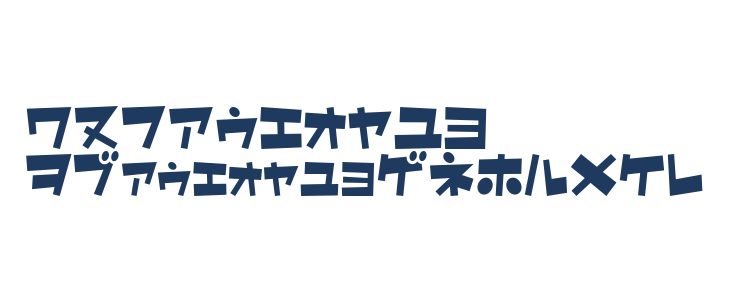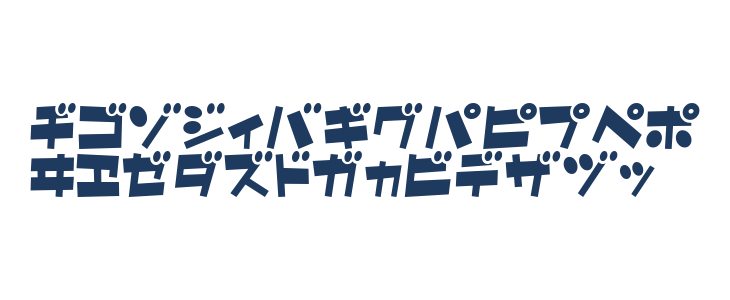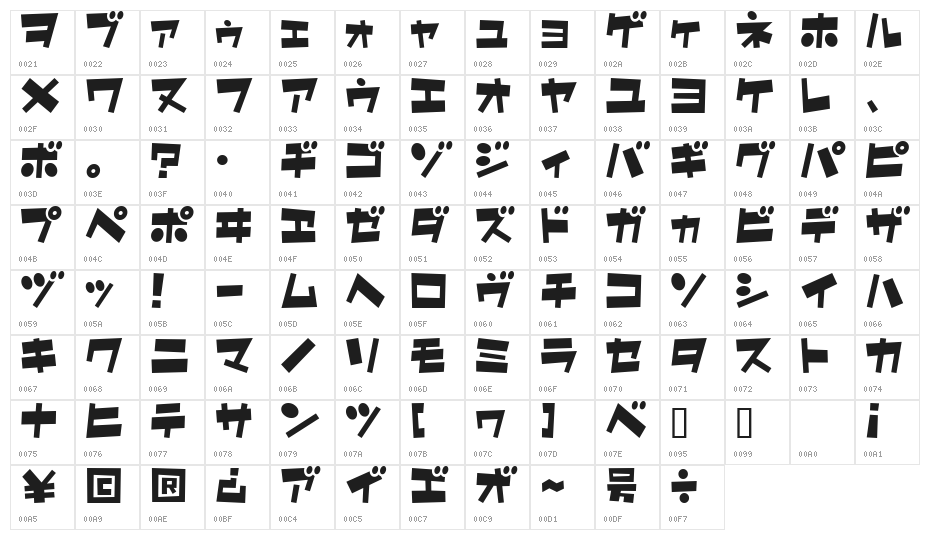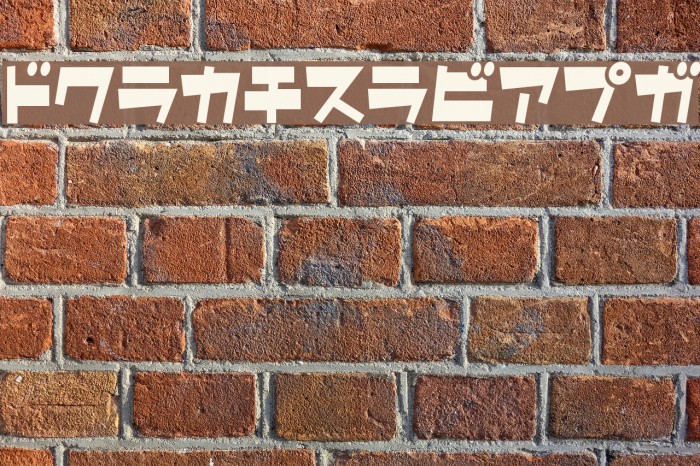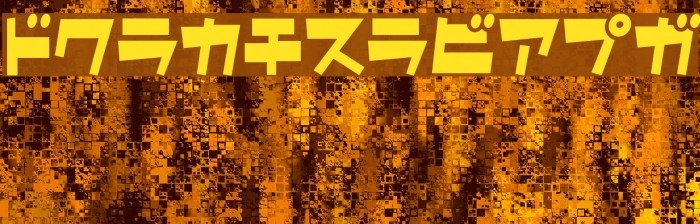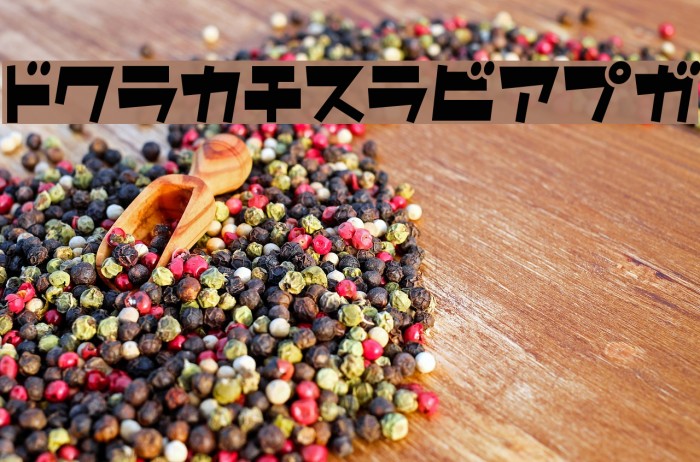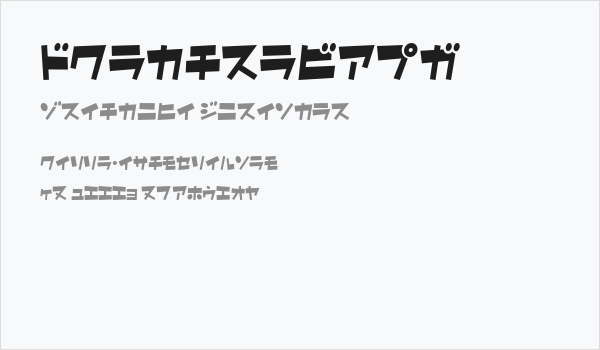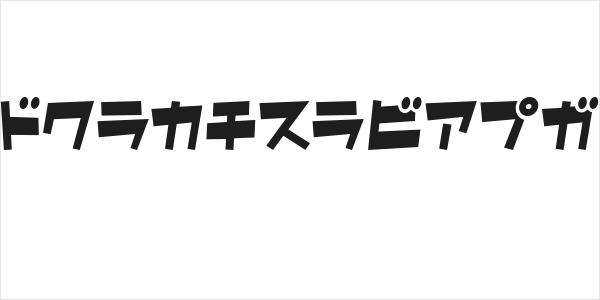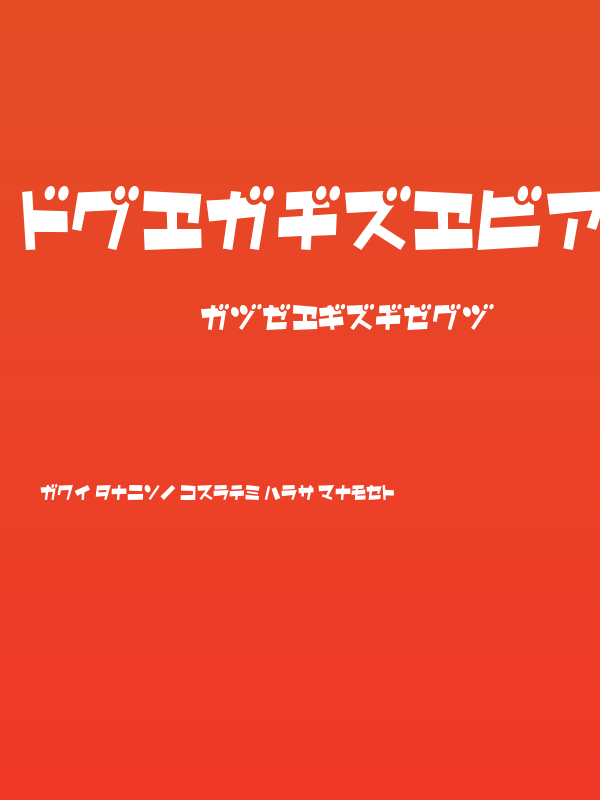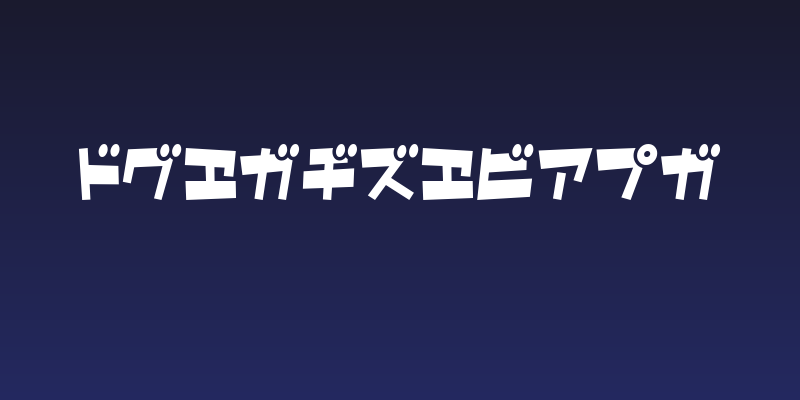
ShotaroV3KT Font
ShotaroV3KT Description
This font features bold, angular characters with a strong geometric influence, creating a striking and modern appearance. The characters are designed with sharp edges and a consistent stroke width, giving the font a uniform and cohesive look. The style is reminiscent of retro-futuristic design, making it suitable for projects that require a bold and attention-grabbing typeface. The font's unique character shapes and high contrast make it stand out, while maintaining readability. It is ideal for use in headlines, posters, and branding materials where a strong visual impact is desired.
| Use Case | Headlines, Posters, Branding |
| Proposed Projects | Ideal for headlines, posters, branding, and any project requiring a bold, modern typeface. |